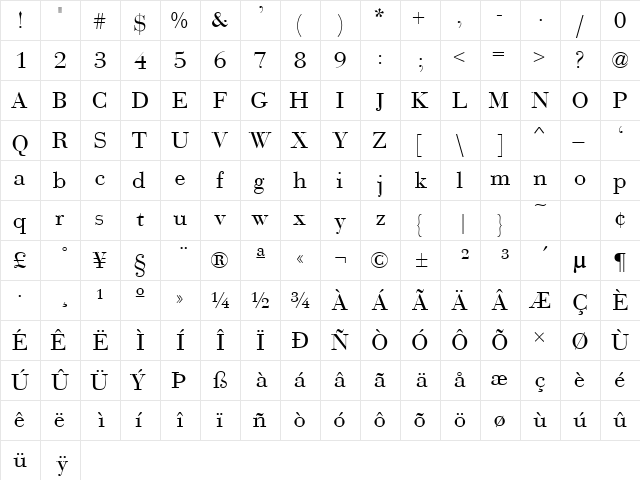
BodoniRecutSSK Regular Font Preview
BodoniRecutSSK Regular
Design Context for BodoniRecutSSK Typeface
BodoniRecutSSK is a composed and adaptable typeface that performs quietly and consistently across a wide range of design contexts.